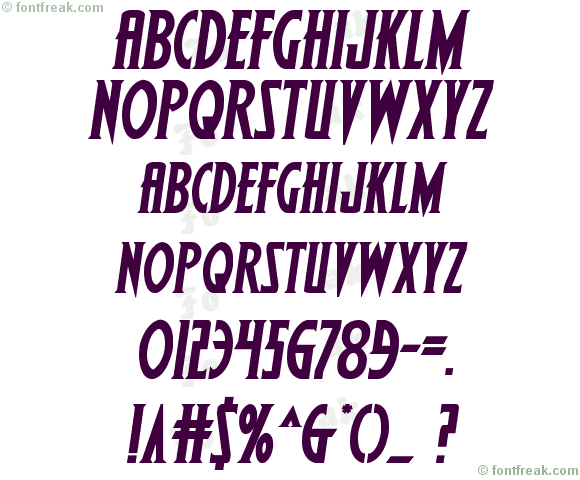
Wolf's Bane II Semi-Leftalic
About Wolf's Bane II Semi-Leftalic
Introducing the Wolf's Bane II Semi-Leftalic font, designed by Daniel Zadorozny, this striking typeface falls under the display category, making it perfect for attention-grabbing applications. The font showcases a unique semi-italics style, characterized by its bold, angular forms and a strong sense of motion. The stroke weight is consistent yet dynamic, allowing for a robust presence on any medium. Its contrasts are pronounced, with sharp edges that give it a fierce aesthetic, reminiscent of its namesake, while the spacing is carefully crafted to maintain readability even at larger sizes.
Ideal for a range of creative projects, the Wolf's Bane II Semi-Leftalic font shines in contexts such as movie posters, where its dramatic flair can evoke excitement and intrigue. It can also elevate the branding of small businesses, especially those in the outdoor or adventure sectors, by imparting a rugged yet stylish vibe. Additionally, it is well-suited for Halloween-themed promotional materials or merchandise, thanks to its slightly whimsical, yet edgy nature. Graphic designers will find this font an asset for creating eye-catching social media graphics or event flyers that demand attention.
Targeted toward graphic designers, small business owners, and content creators, the Wolf's Bane II Semi-Leftalic font offers flexibility in its use while maintaining a distinct personality that sets it apart. This font stands out not only for its unusual style but also for its ability to convey a sense of drama and adventure, making it a versatile choice for various applications. With a Wolf's Bane II Semi-Leftalic font free download available, users can easily incorporate this captivating typeface into their projects, transforming ordinary designs into extraordinary statements.